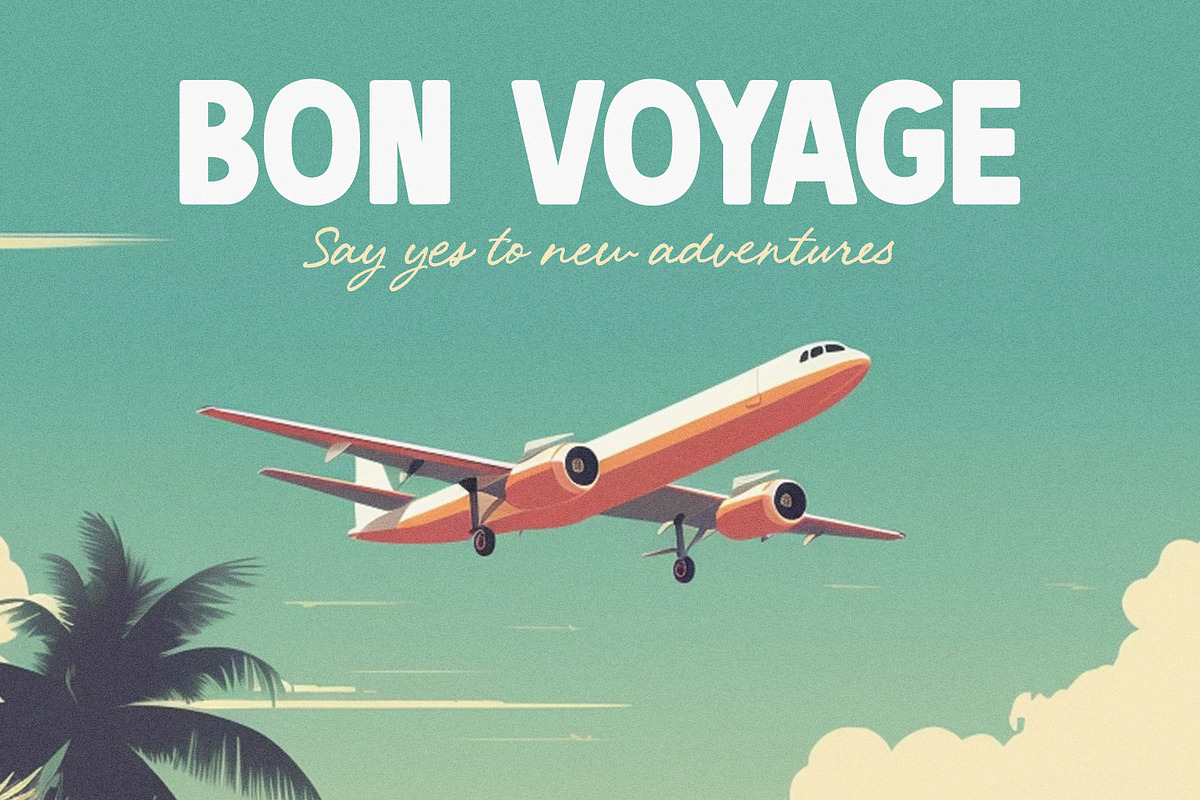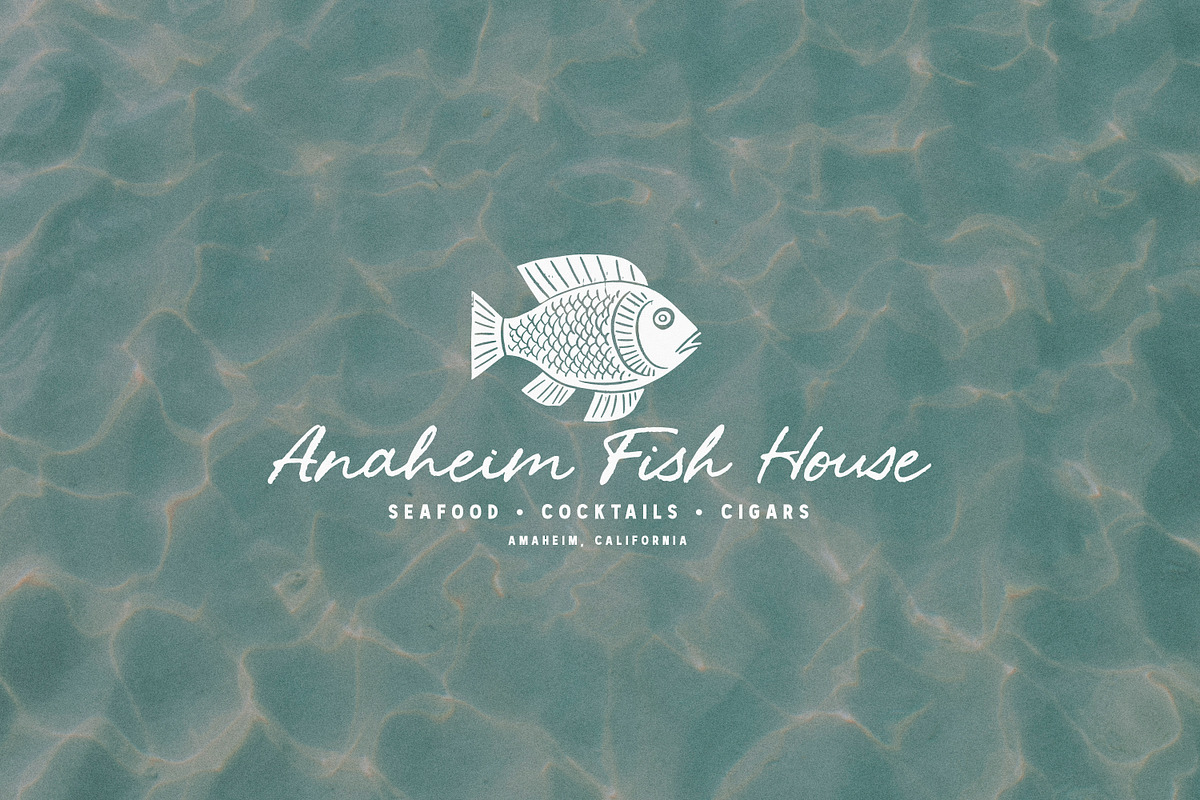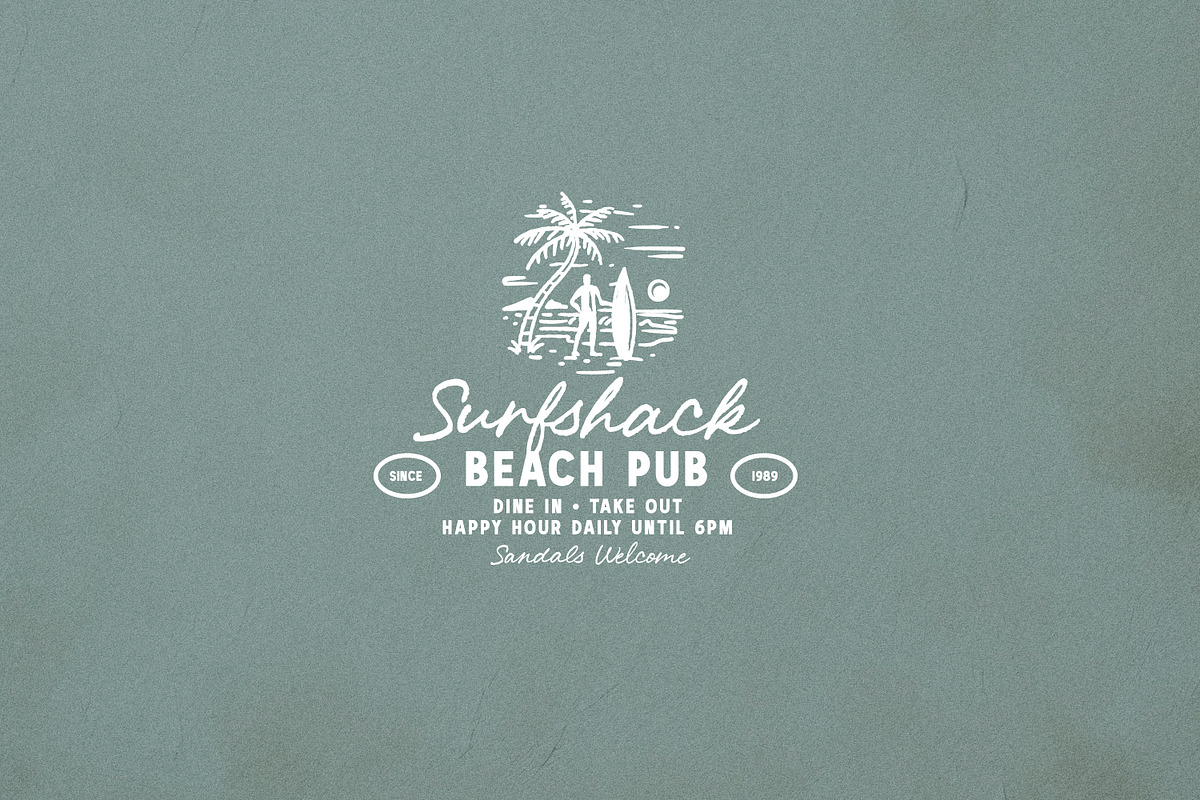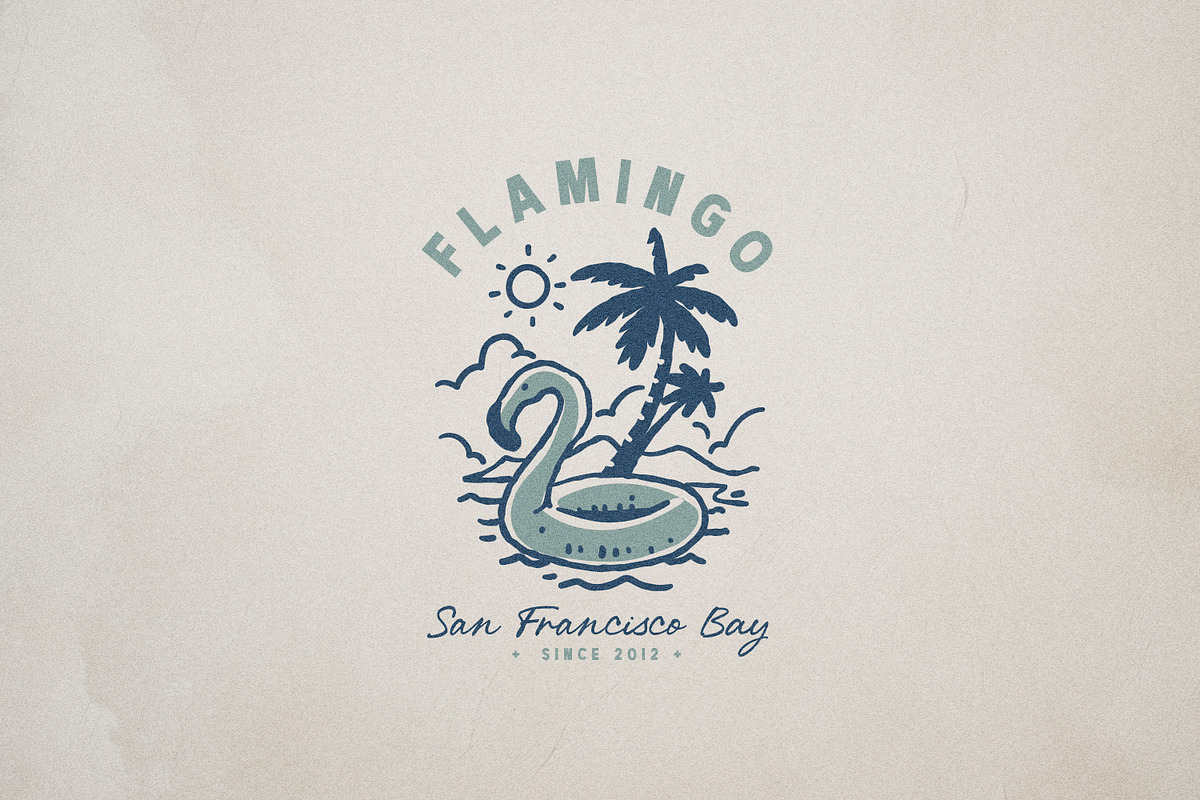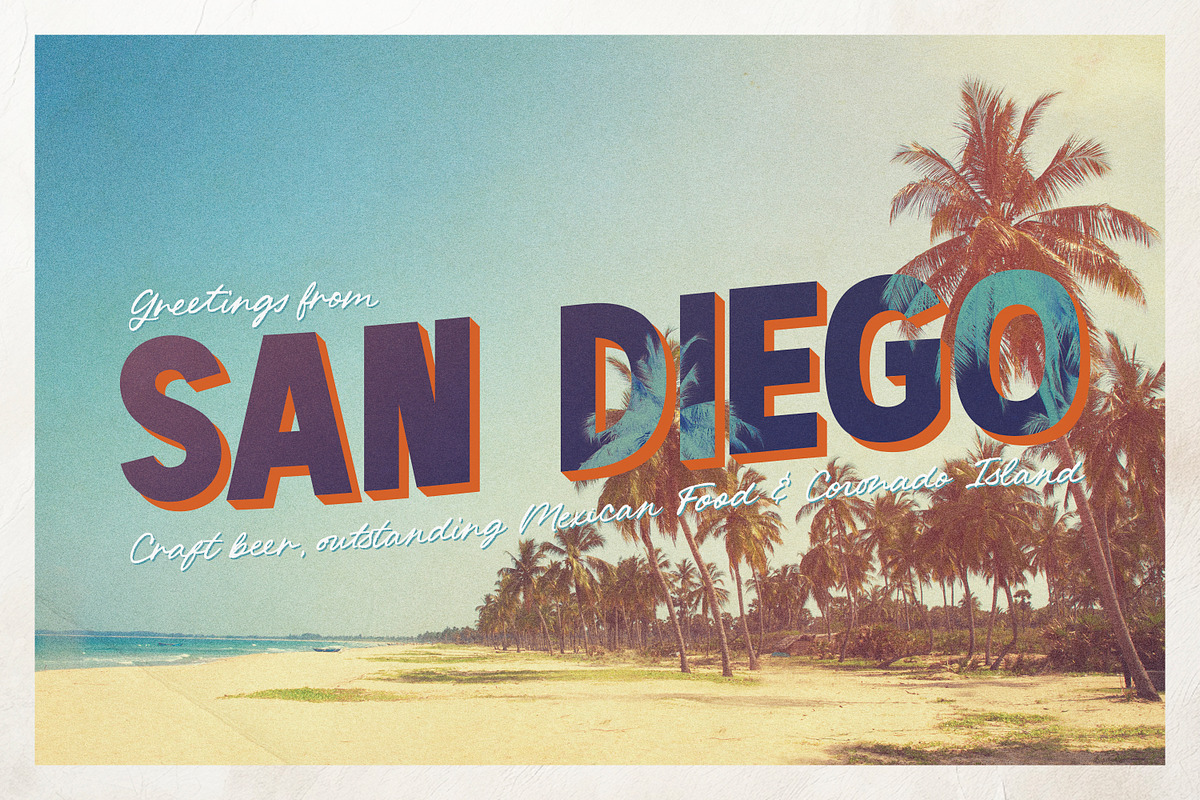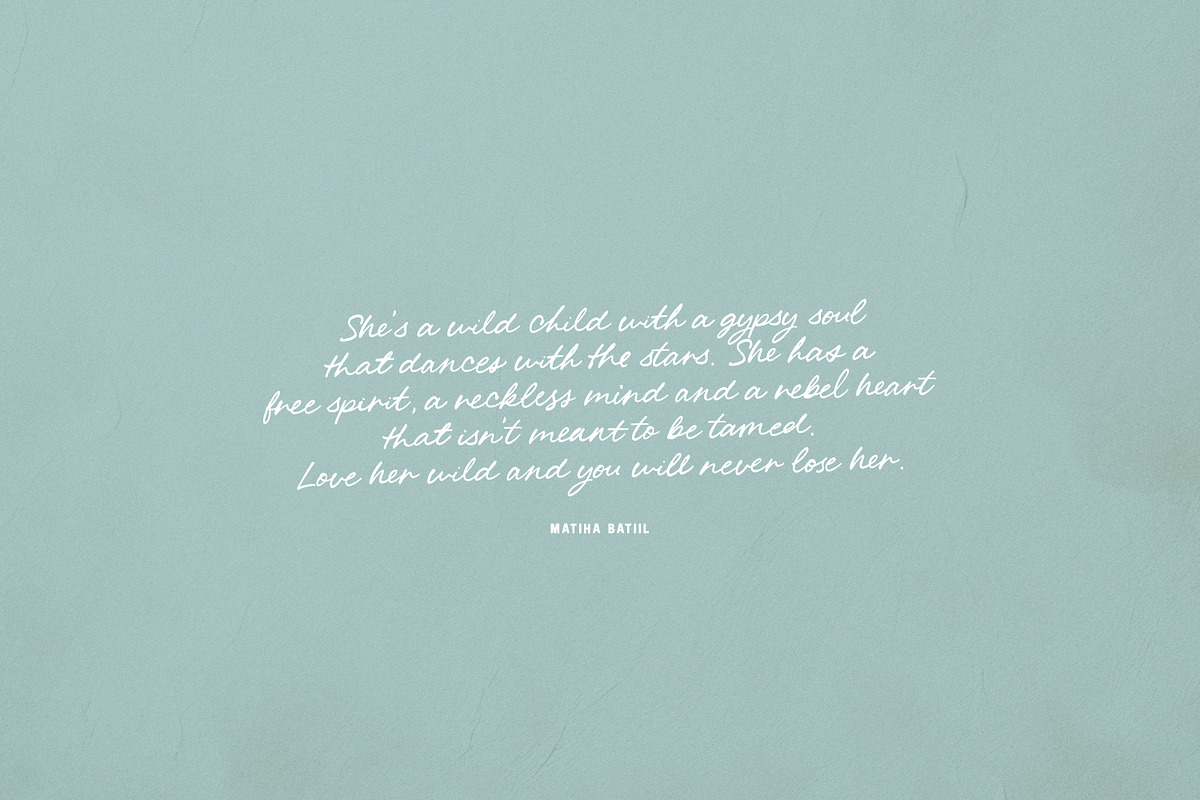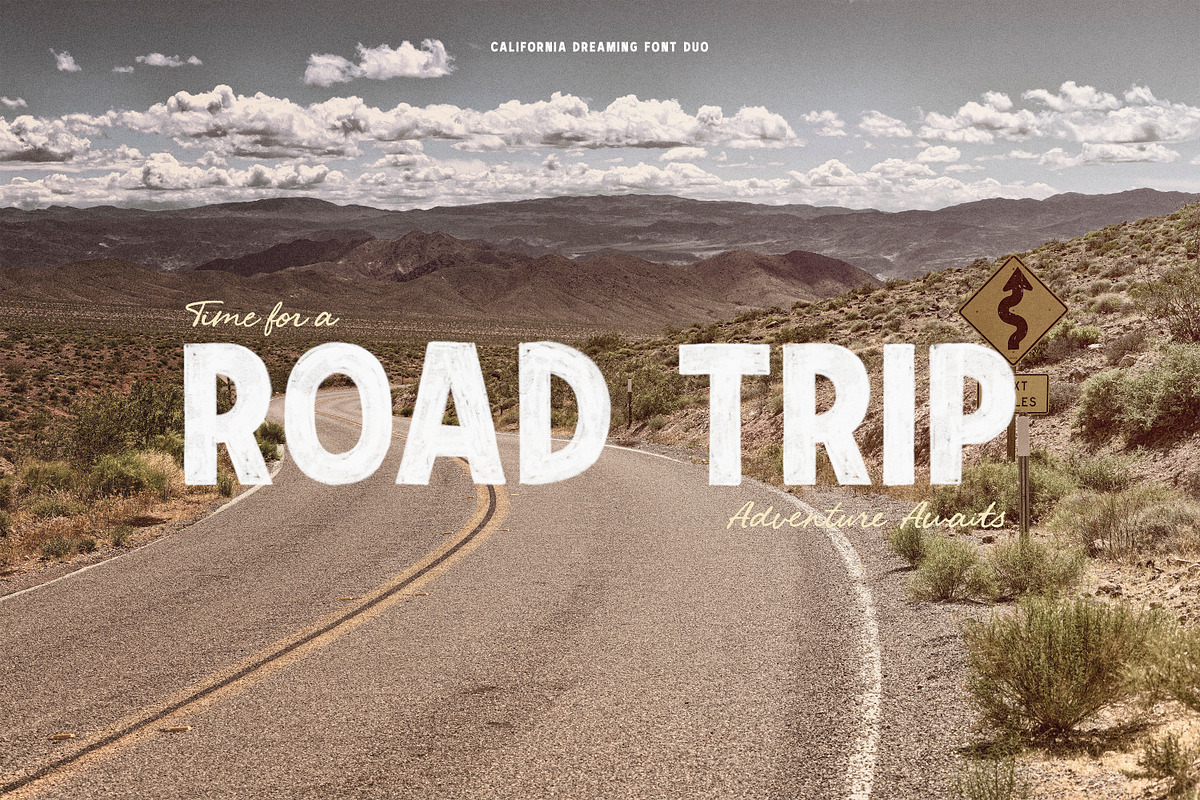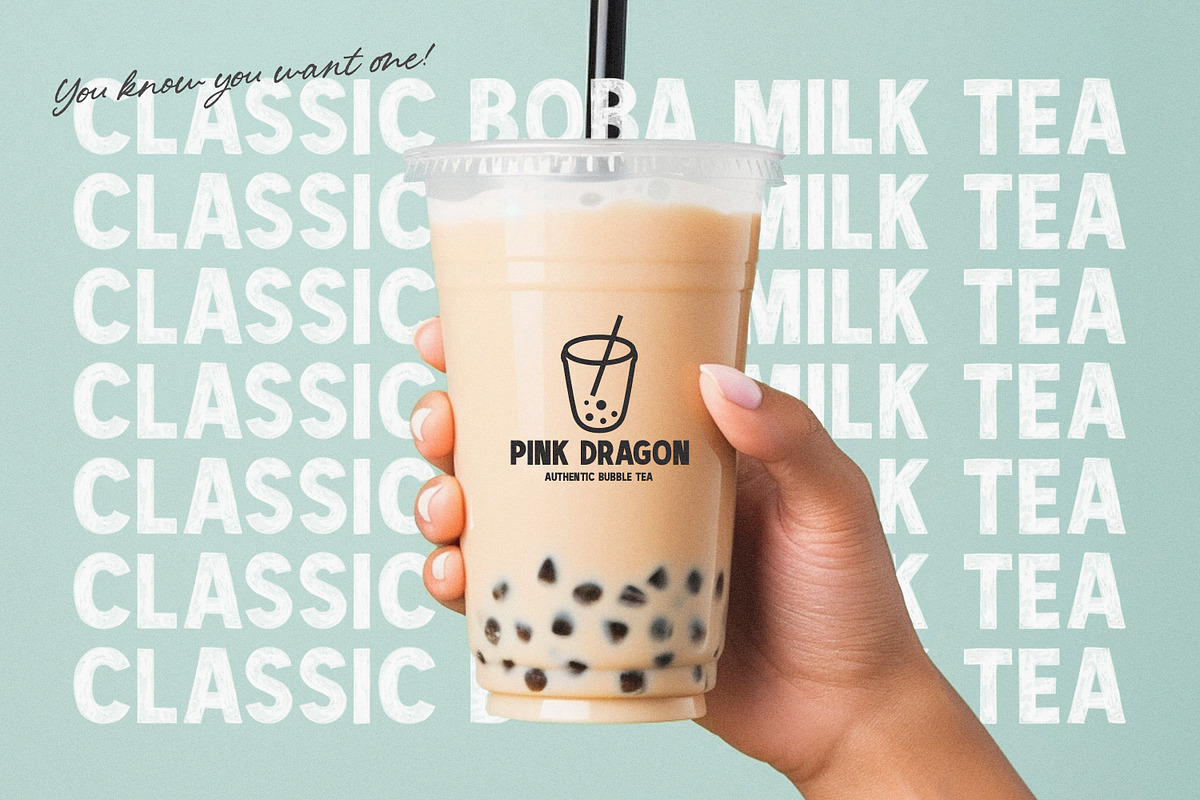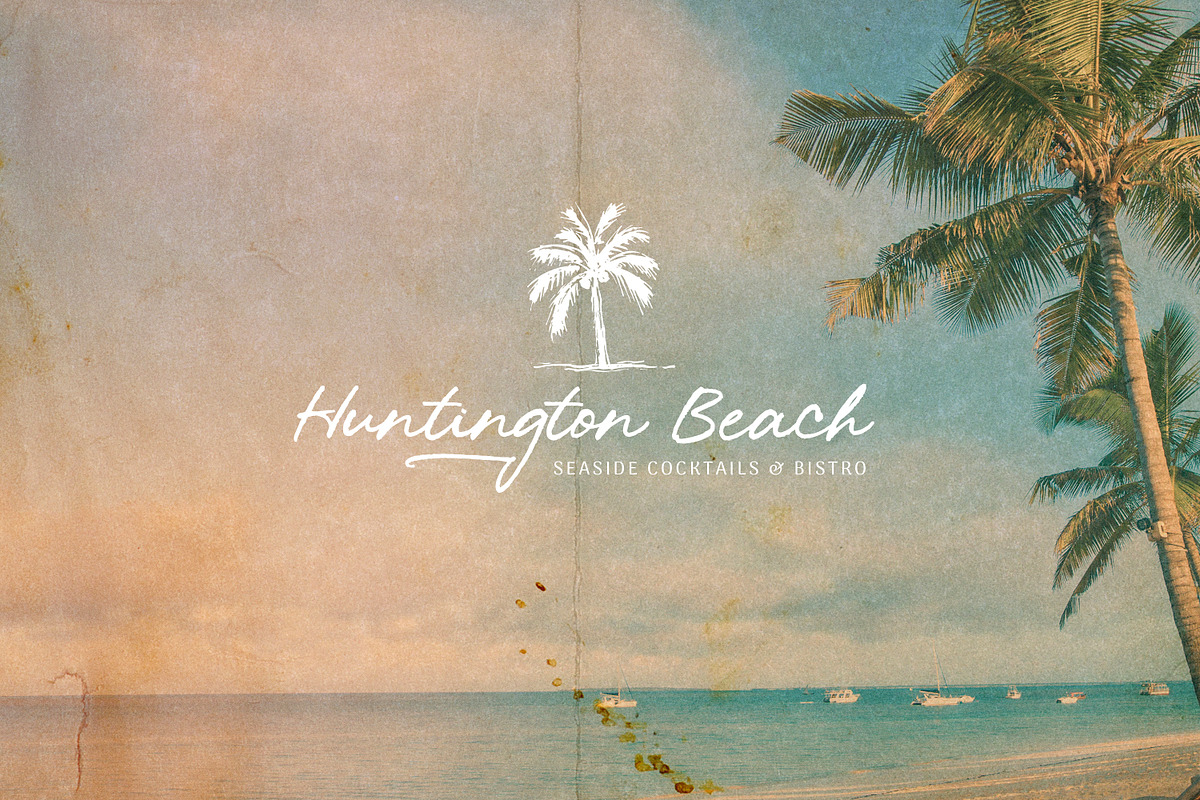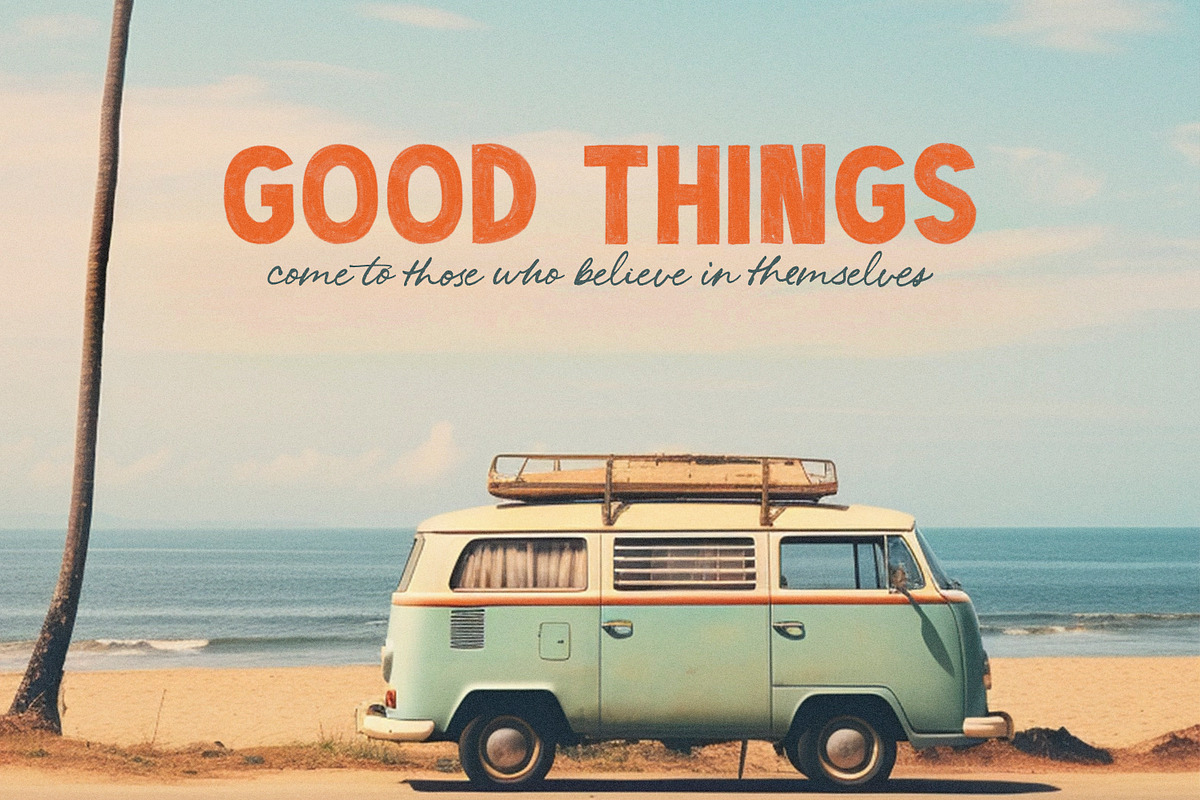
California Dreaming Script & Sans
Say hello to California Dreaming 😎🌴, a perfectly-paired, hand drawn font duo, boasting a classic sans serif (in 4 versions, including an SVG), paired with an authentically-textured script font. This inspired duo was built for just about everything, and looks oh-so-good on headlines, taglines, book covers, greeting cards, post cards, products, stickers, social media and more! Go crazy with this one and show me what you’ve got! Can’t wait to see what you create!
- California Dreaming Script (OTF ) - A delicate, hand drawn script font with Western European Language support and over 100 handwritten alternates & ligatures.
- California Dreaming Sans (OTF) - A classic, streamlined sans serif that pairs beautifully with California Dreaming Script!
- California Dreaming Sans Italic (OTF) - An italic version for some extra pop!
- California Dreaming Sans Rounded (OTF) - Sometime you just need to take the edge off. 😉 Including a rounded version.
- California Dreaming Sans SVG (OTF) - A hand-filled, lightly transparent, Bitmap version to add some texture to your work!